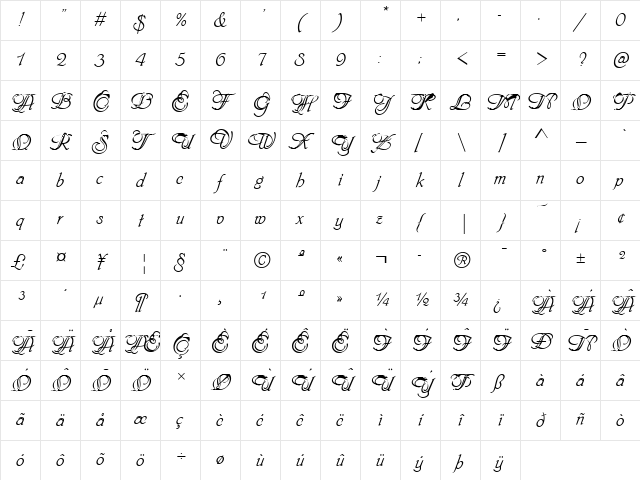
Complete Phyllis Initials D Regular glyph index. Displaying only characters natively supported by Phyllis Initials D Regular font.
Phyllis Initials D is a composed and adaptable typeface that performs quietly and consistently across a wide range of design contexts.